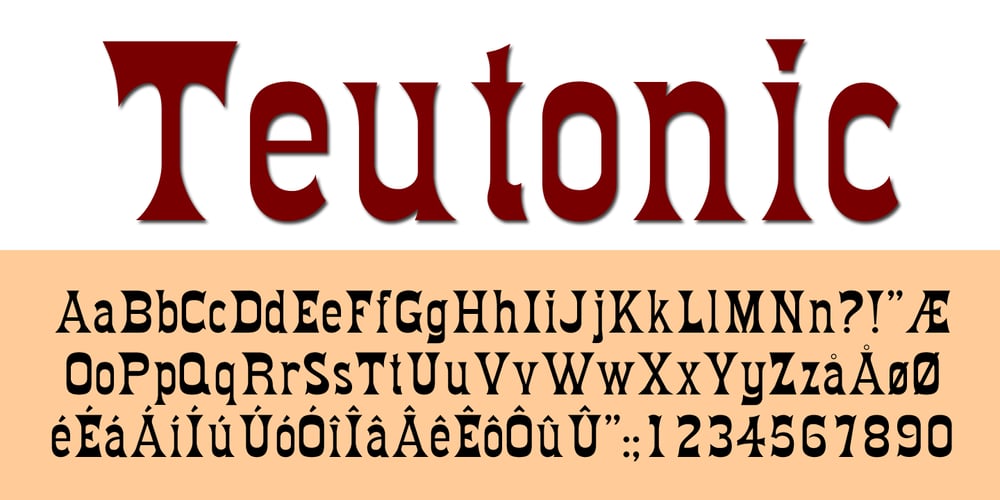
Teutonic
Teutonic font
Teutonic Font Family was designed by William Hamilton Page, Jordan Davies and published by Wooden Type Fonts. Teutonic contains 1 styles and family package options. A revival of one of the popular wooden type fonts of the 19th century. Suitable for text or display, Teutonic features short descenders, and rounded, curved serifs.